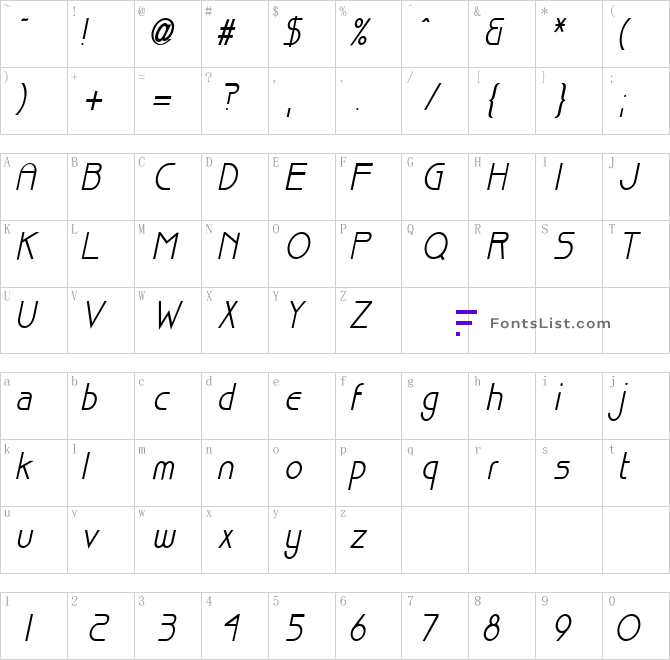
- Font Name:Basque-Condensed
- Subfamily:Bold Italic
- Subfamily:Alts:Basque-Condensed Bold Italic
- Full Name:Basque-Condensed Bold Italic
- PostScript:Basque-Condensed-BoldItalic
Basque-Condensed-Bold-Italic.ttf is a very beautiful artistic font, Basque-Condensed-Bold-Italic.ttf is widely used in the design and printing of various books and pictures,Basque-Condensed-Bold-Italic.ttf has a strong visual impact,Basque-Condensed-Bold-Italic.ttf is a commonly used font in newspapers, magazines and books, and is used in posters, e-commerce Poster design, store design, logo design, font design and other fields.Basque-Condensed-Bold-Italic.